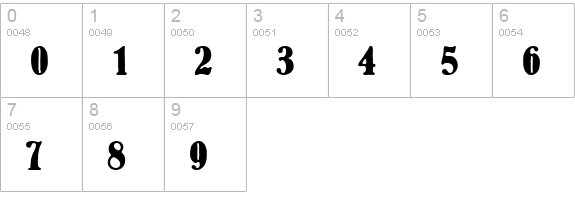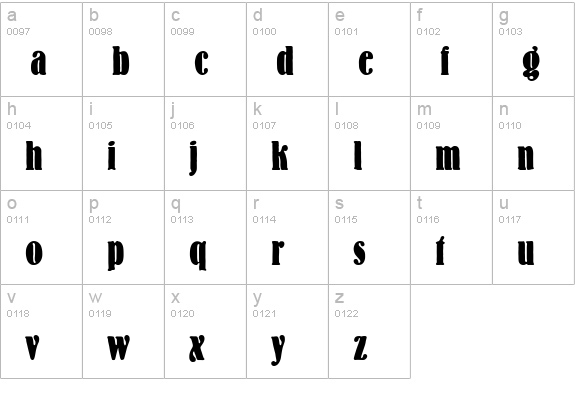
Bernstein SF font is a versatile and elegant typeface that exudes a sense of sophistication and modernity. With its clean lines and distinct letterforms, this font is perfect for a wide range of projects, from branding to editorial design. The sleek and stylish appearance of Bernstein SF font makes it a popular choice for designers looking to add a touch of refinement to their work. One of the best things about Bernstein SF font is that it is completely free to download. You can easily access this stunning typeface at FontsMarket.com, where you can unleash your creativity and enhance your designs with this beautiful font. Whether you're working on a logo, website, or any other project, Bernstein SF font will surely make a lasting impression with its timeless appeal and aesthetic charm. Upgrade your typography game today with Bernstein SF font and elevate your designs to the next level.